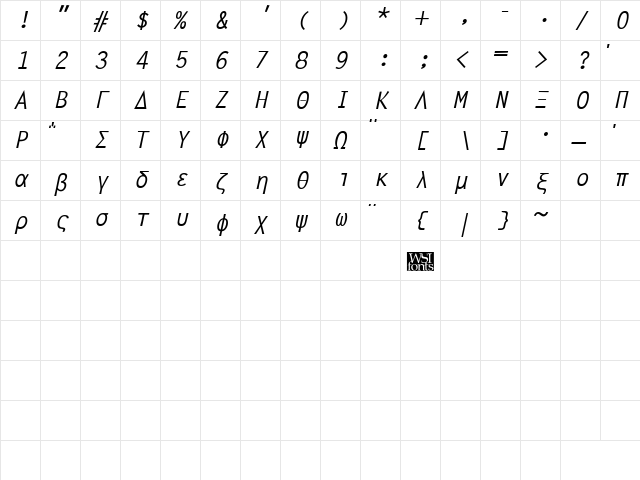
GreekSansFixedWidth Italic
Design Context for GreekSansFixedWidth Typeface
GreekSansFixedWidth is a composed and adaptable typeface that performs quietly and consistently across a wide range of design contexts. The slanted form adds forward momentum and visual energy.